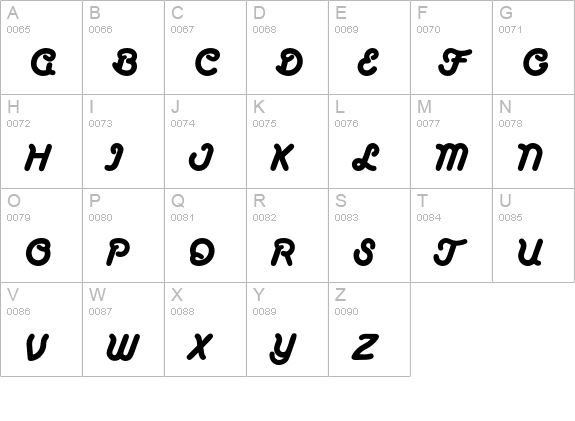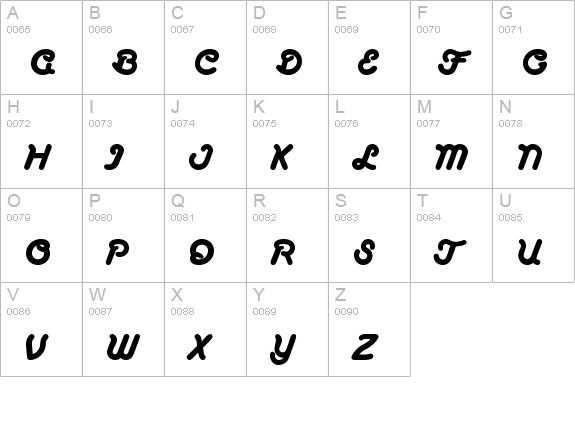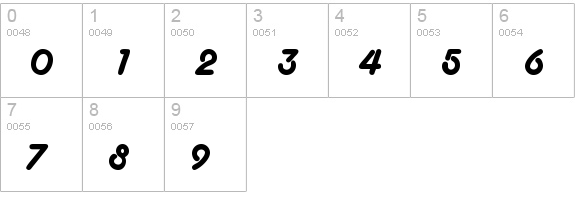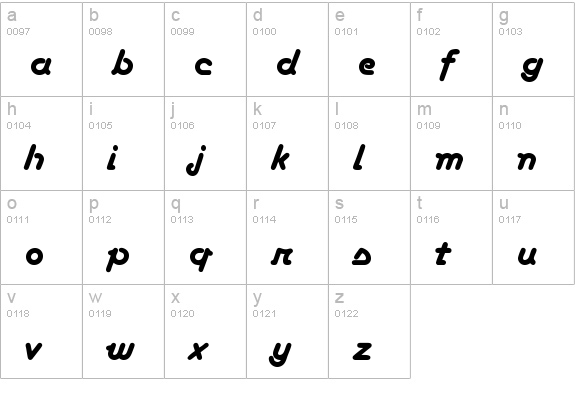
BoaScript-Normal Font Details
BoaScript-Normal is the standard, neutral variant in the BoaScript typeface family \xE2\x80\x94 well suited to general body text, paragraphs, and standard typographic work.
BoaScript-Normal font is a versatile and elegant typeface that exudes sophistication and charm. With its smooth lines and balanced curves, this font is perfect for a wide range of design projects, from elegant invitations to stylish branding materials. BoaScript-Normal font is free to download at FontsMarket.com, making it easily accessible for all your creative endeavors. Whether you're designing a wedding invitation or crafting a logo for your business, BoaScript-Normal font is sure to add a touch of class and sophistication to your work. Download this beautiful font today and elevate your designs to the next level.